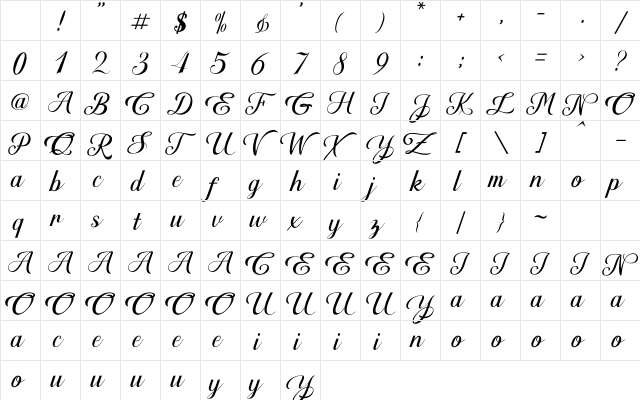
Complete Flamboyan Regular glyph index. Displaying only characters natively supported by Flamboyan Regular font.
Flamboyan is a composed and adaptable typeface that performs quietly and consistently across a wide range of design contexts.
Who designed the Flamboyan Regular font?
This font was published by Agus Abdurrokhim. Check the technical specs section for copyright and designer details.